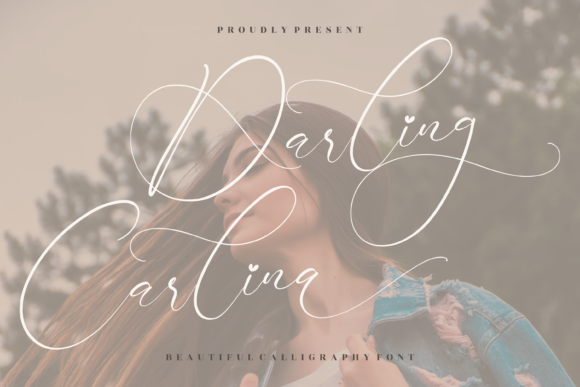
Unleash the Enchantment of Darling Carlina: A Script Font Family to Elevate Your Creative Visions
Introducing Darling Carlina, a captivating calligraphy font that will infuse your creative projects with an aura of elegance and sophistication. This enchanting script font is a masterpiece crafted by Letterfabric, renowned for their exquisite typographic creations. With its graceful curves and refined flourishes, Darling Carlina is the perfect choice for designers seeking a font that exudes both beauty and versatility.
Immerse yourself in the world of Darling Carlina and let your creativity soar. Whether you're designing logos, branding projects, homeware designs, product packaging, or creating stunning posters and greeting cards, this font will add a touch of timeless charm to your work. Its versatility knows no bounds, making it the ideal companion for a wide range of projects.
Envision your designs adorned with the flowing strokes and delicate swashes of Darling Carlina. Picture logos that radiate sophistication, branding projects that convey a sense of luxury, and homeware designs that evoke a warm and inviting atmosphere. Let your imagination run wild as you create product packaging that captivates customers or design mugs, quotes, and shopping bags that become cherished keepsakes.
The possibilities are endless with Darling Carlina. Its timeless beauty lends itself perfectly to labels, photography, watermarks, and special events. Whether you're designing invitations or greeting cards, this font will add a touch of elegance and charm that will leave a lasting impression.
So, embark on a creative journey with Darling Carlina and witness the transformation of your designs. Let this enchanting script font be your muse, guiding you towards masterpieces that capture hearts and leave an indelible mark on the world of design.